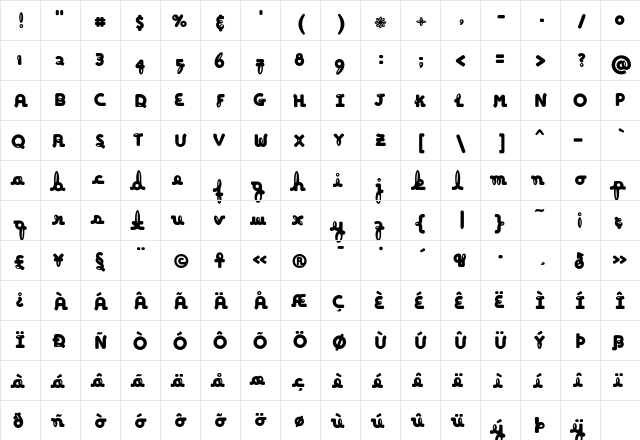
Inkling Bold
Design Context for Inkling Typeface
Inkling is a composed and adaptable typeface that performs quietly and consistently across a wide range of design contexts. Its bold stroke weight gives it real presence on the page.